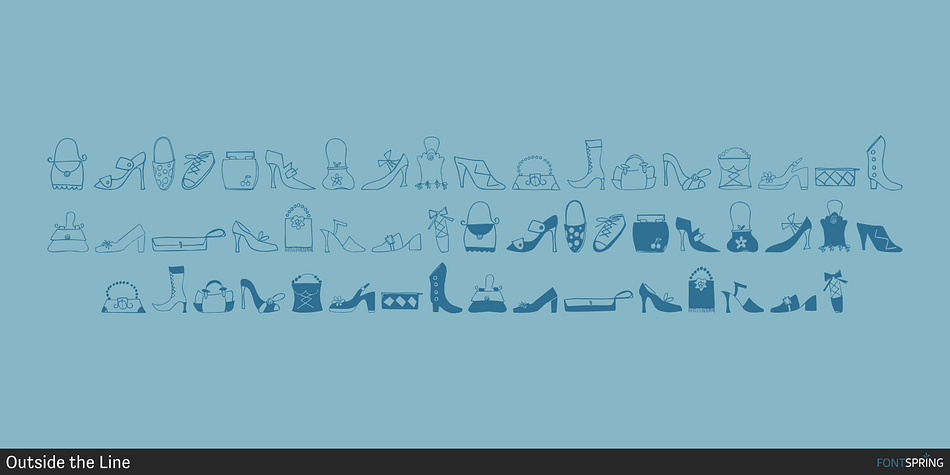
Just Shoes and Purses is a dingbat font published by Outside the Line.
Just Shoes and Purses Regular
Just Shoes & Purses… from silly to sophisticated, a collection of 26 line drawings of shoes and purses and those same 26 with areas filled in.